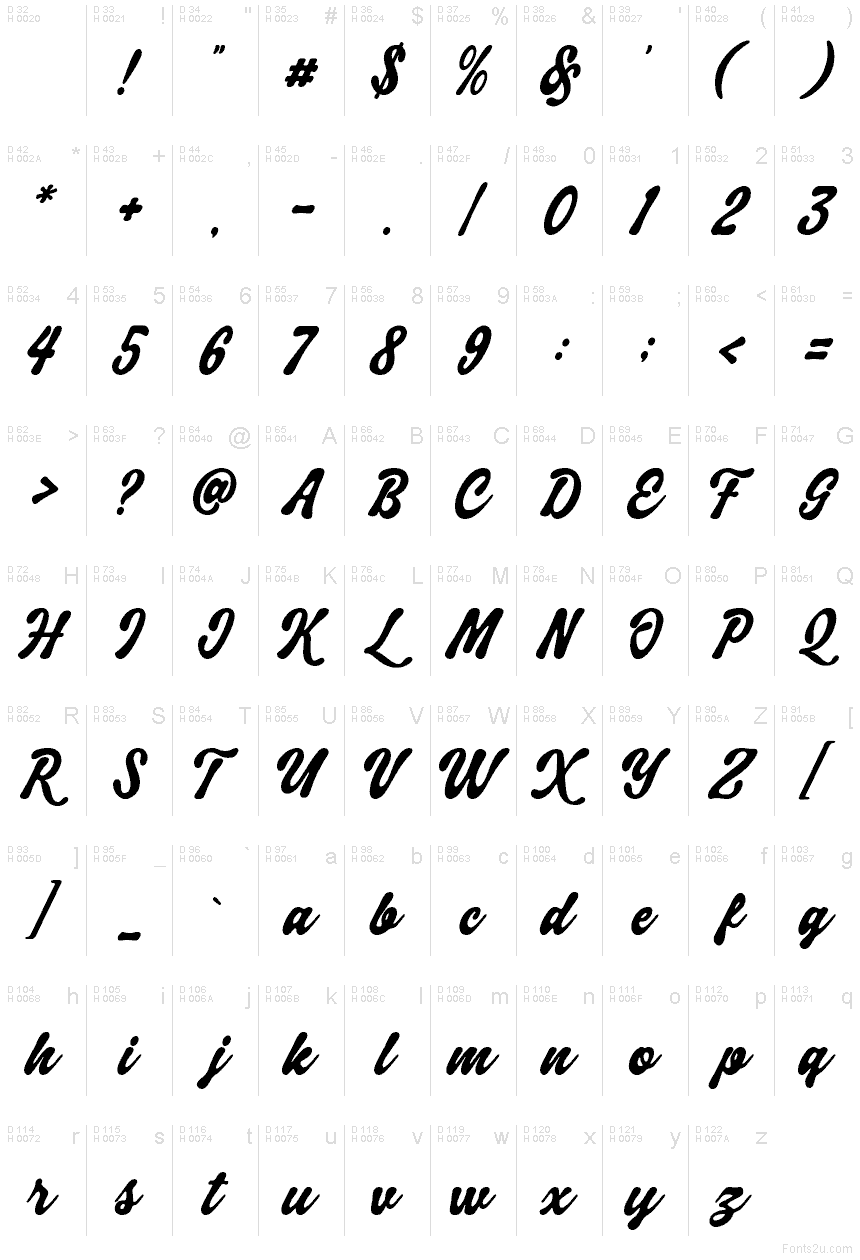
Velnica Regular
Velnica font by Blankids is a free brush script typeface that hits that sweet spot between bold impact and easy readability. Its thick, inky strokes feel like fresh marker on glossy paper, with smooth, rounded curves that stay clean even at smaller sizes. The rhythm is confident and steady rather than wild or scratchy, giving your text a hand-lettered warmth without sacrificing clarity or polish.
Using Velnica, you can bring a friendly, crafted feel to logos, product packaging, social media graphics, quotes, posters, and café or bakery branding. The connected script flows beautifully in short phrases and names, especially when you give it plenty of breathing room. This free font pairs nicely with a simple geometric sans for body text—let Velnica handle the headlines while the sans keeps supporting copy clean and unobtrusive.
Velnica Font by Blankids Studio